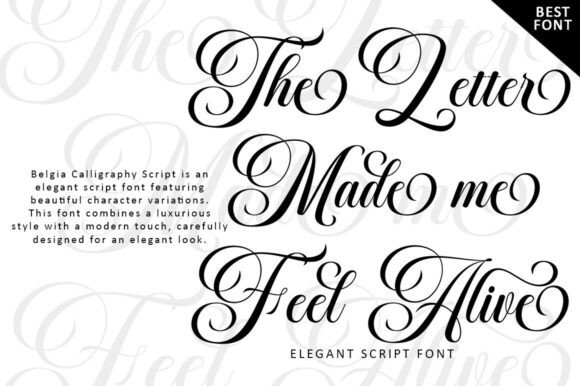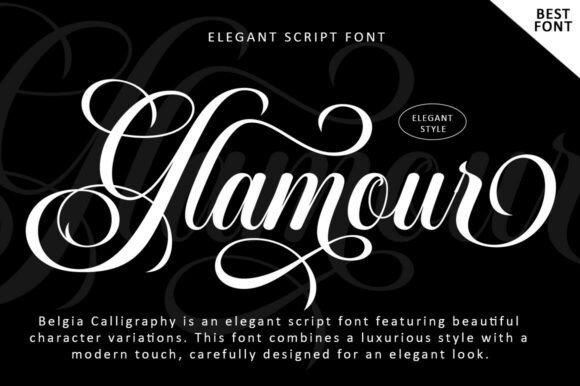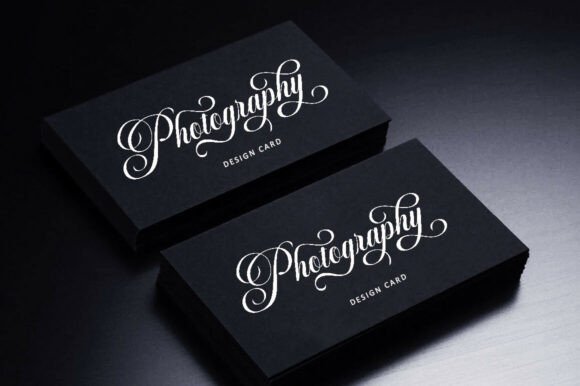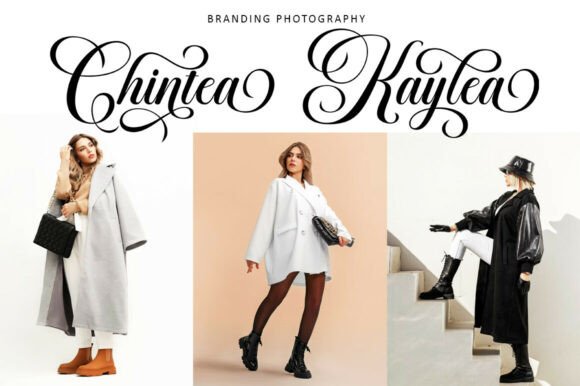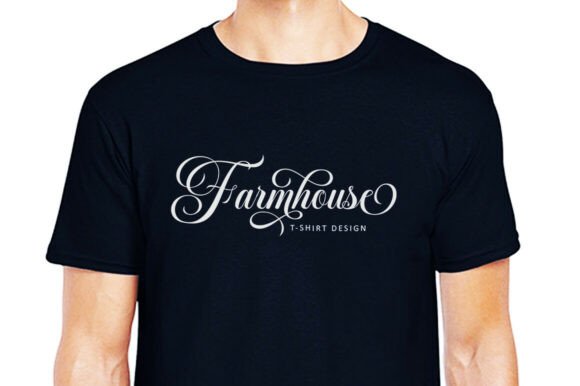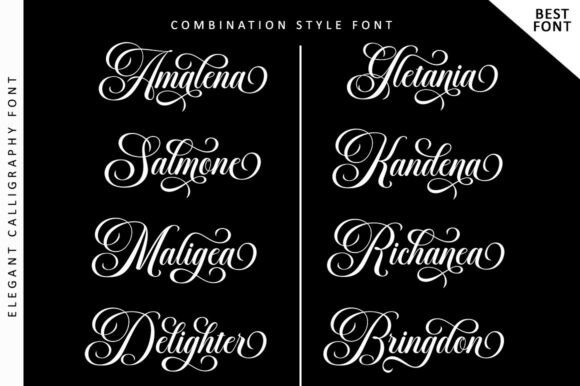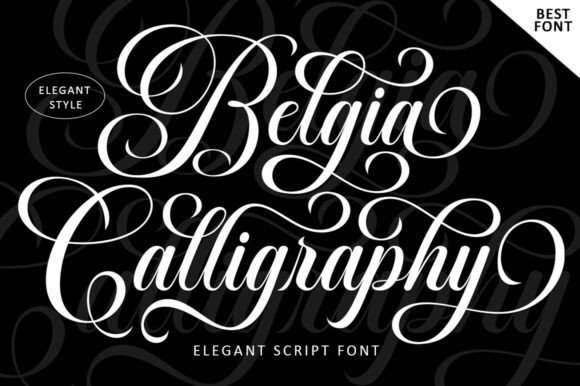
Adding a Touch of Elegance with the Belgia Calligraphy Font
As a designer, there’s nothing quite like the thrill of bringing a project to life. It’s that moment when you’re sketching out ideas, and the perfect font pops into your head, elevating the entire design. For me, that moment often comes when I’m working on a high-end wedding invitation or a luxury brand’s packaging.
That’s where the Belgia Calligraphy Font comes in – a stunning script font that combines the elegance of traditional calligraphy with a modern, sophisticated twist. This beautiful font is designed to make a statement, with its luxurious letter connections and classic style making it perfect for a wide range of formal uses.
As a designer, you’ll appreciate the value of the Belgia Calligraphy Font, not just for its stunning aesthetics but also for its versatility and ease of use. With PUA encoding included, you can access all special characters and decorative elements without needing additional software, making it a must-have in your design toolkit.
BELGIA CALLIGRAPHY FONT FEATURES
- Font Family: Belga, Belga Bold, Belga Italic, Belga Bold Italic
- Character Set: Latin, Latin Extended, Cyrillic, Greek, and many more
- Unique Characteristics: Elegant, sophisticated, and highly legible, with subtle flair and flair, perfect for formal invitations, wedding stationery, and luxury branding.
Belgia Calligraphy Font Review
Overall, I was impressed by the beautiful and expressive nature of the Belgia Calligraphy Font ✨. It’s perfect for those looking to add a touch of elegance and sophistication to their designs. The font’s flourishes and connections between letters are well-designed, making it ideal for titles and headings.
The font also works well for digital use, with clear and crisp lines that hold up well at various sizes and resolutions ✨. Additionally, it’s highly legible, even at smaller font sizes.
One of the main limitations of the Belgia Calligraphy Font is its lack of versatility ⚠️. While it’s great for formal and elegant designs, it may not be the best choice for more casual or playful projects. The font can also be a bit too ornate for some designs, which may detract from the overall message.
In conclusion, I would recommend the Belgia Calligraphy Font to designers looking to add a touch of sophistication and elegance to their designs ✨. While it may have some limitations, the font’s unique character and beauty make it a great choice for the right project.
- Beautiful and expressive nature
- Perfect for titles and headings
- Works well for digital use
- Highly legible
- Lack of versatility
- May be too ornate for some designs
For best results, use the font in combination with a bold or italic font to create contrast and visual interest.
The Belgia Calligraphy Font is ideal for:
– Event branding and signage
– Luxury product packaging and marketing materials
– High-end business cards and letterheads
Alternatives to Belgia Calligraphy Font
Carolyna Pro is a modern calligraphy font with a touch of elegance. It’s perfect for wedding invitations, branding, and other creative projects where a sophisticated look is desired. Compared to Belgia Calligraphy Font, Carolyna Pro has a more refined and polished feel, making it suitable for high-end designs.
Pacifico is a beautiful, cursive script font that evokes a sense of relaxation and calmness. It’s ideal for use in travel, wellness, and lifestyle branding, as well as in creative projects that require a soothing tone. Unlike Belgia Calligraphy Font, Pacifico has a more laid-back and casual feel, making it perfect for projects that require a warm and inviting atmosphere.